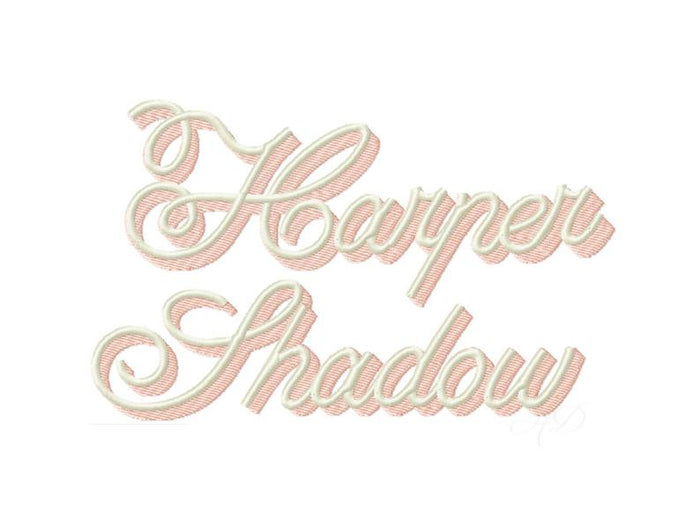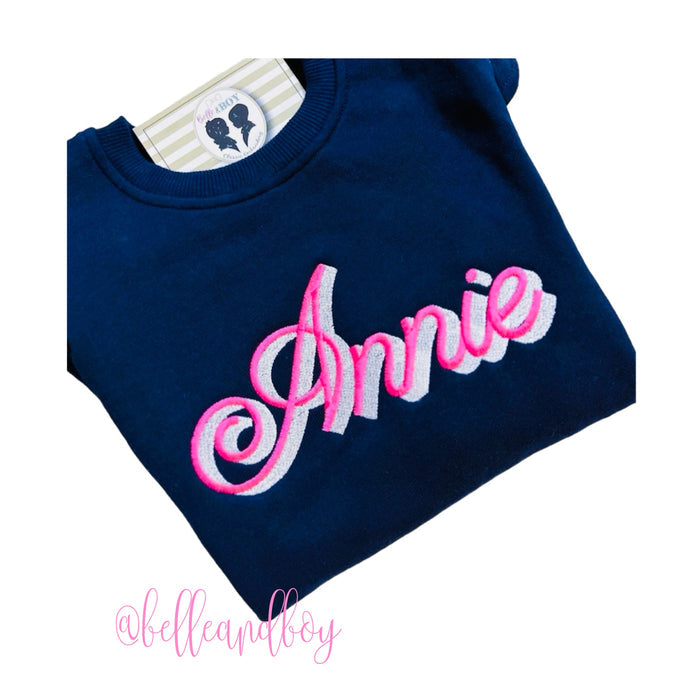
Harper Shadow 4X4 Embroidery Font for Monogramming
Transform your crafting projects with the Harper Shadow 4X4 Embroidery Font, designed for vibrant and eye-catching monogramming. This versatile two-color font features contrasting fill and satin stitches, making it perfect for both uppercase and lowercase letters A-Z. You will receive 52 individual files available in multiple formats.